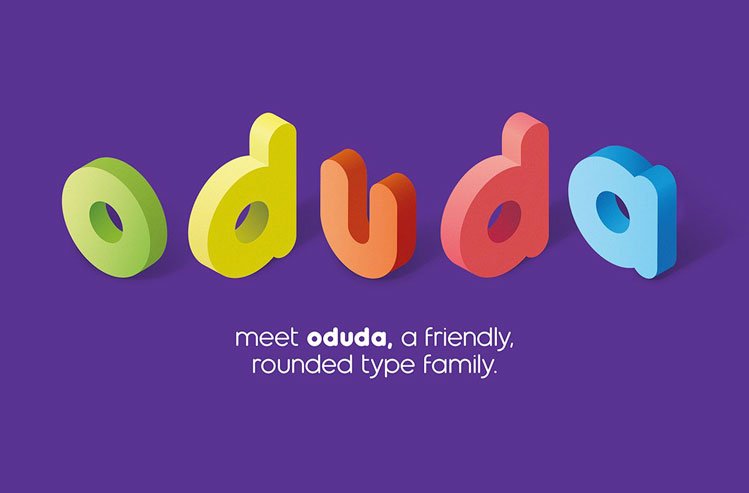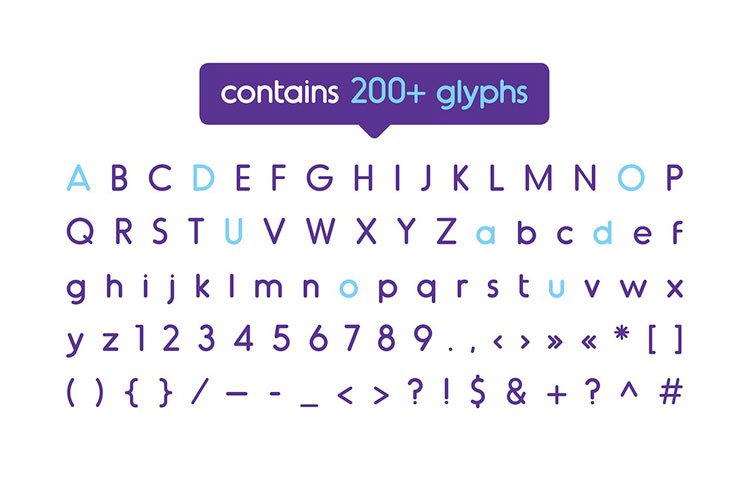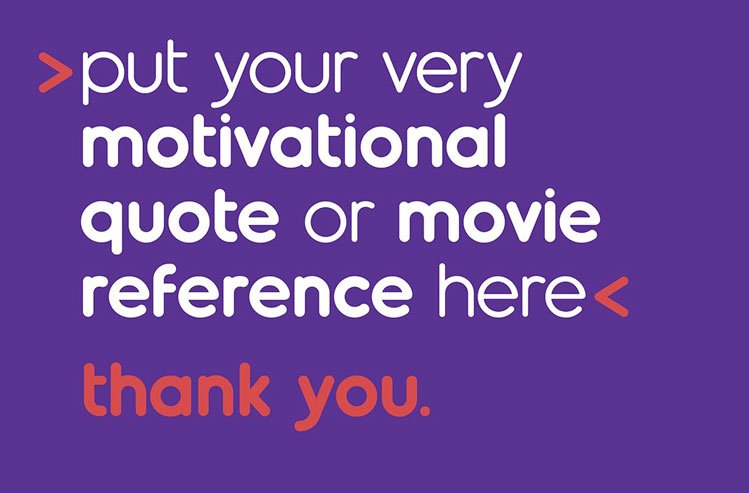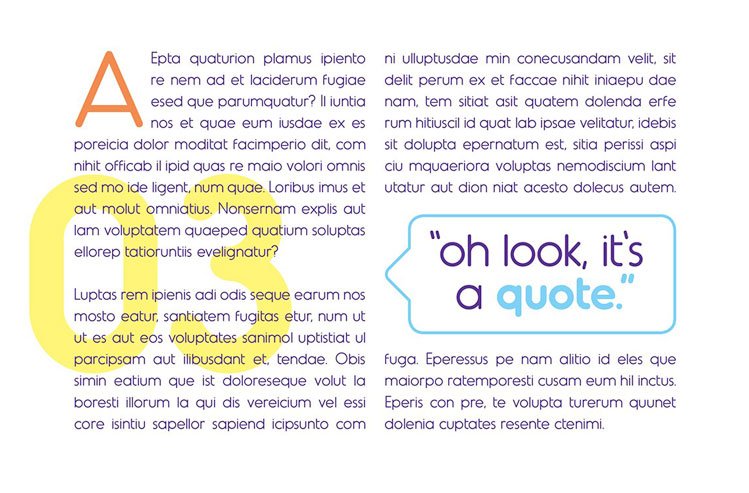
Oduda – Rounded Typeface
Oduda is a geometric, rounded typeface designed by thumbnail. graphic design in 2015. The use of perfect round shapes and quite a low ascender height makes it a very stable, yet playful-looking typeface.
Next to the demo version of the bold weight, oduda is now available in 4 weights with an improved and extended character set.